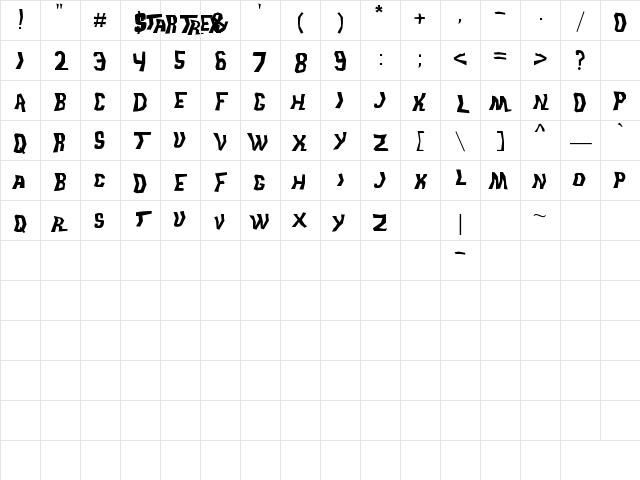
Trek Disruptor Blast Regular
Designer: Steve Ferrera
Design Context for Trek Disruptor Blast
Trek Disruptor Blast is a composed and adaptable typeface that performs quietly and consistently across a wide range of design contexts.
Pro Tip: Use Trek Disruptor Blast in both headline and body roles to test its range before committing to a single application.